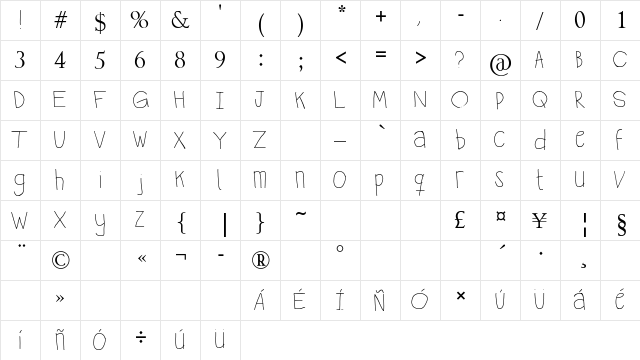
the do Regular
Design Context for the do Typeface
the do offers clean, dependable letterforms without strong stylistic allegiance, making it a practical choice for designers who need flexibility.
Pro Tip: Pair the do with a font of contrasting weight or personality to build a more expressive typographic hierarchy.